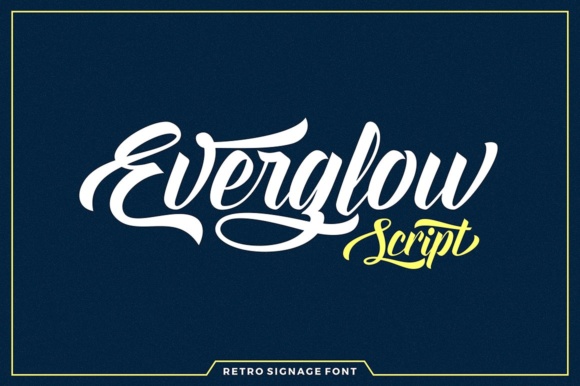
Get ready to experience the radiant glow of Everglow Script Font - a retro, signage font that sparks nostalgia and ignites creativity. This remarkable font, meticulously crafted by seniorsstudio, is not just a collection of letters; it's an artistic journey that transports you back to the golden era of vintage typography.
Everglow Script's bold and clean lines evoke a sense of timeless elegance, while its intricate variations of each character add a touch of playfulness and intrigue. Its versatility knows no bounds, making it the perfect choice for an array of projects, from captivating logos and eye-catching posters to enchanting invitations and heartfelt greeting cards.
With Everglow Script Font, you hold the key to unlocking a world of typographical possibilities. Its unique charm lies in its ability to transform ordinary words into extraordinary works of art. Whether you're a seasoned designer or a creative enthusiast, Everglow Script will elevate your projects to new heights, leaving an unforgettable impression on all who behold it.
Immerse yourself in the retro vibes and let the Everglow Script Font guide you through a typographical adventure like no other. Embrace its timeless beauty and watch as your designs radiate with a captivating glow that sets them apart from the ordinary. So, dive into the world of Everglow Script Font today and experience the magic of typography at its finest.